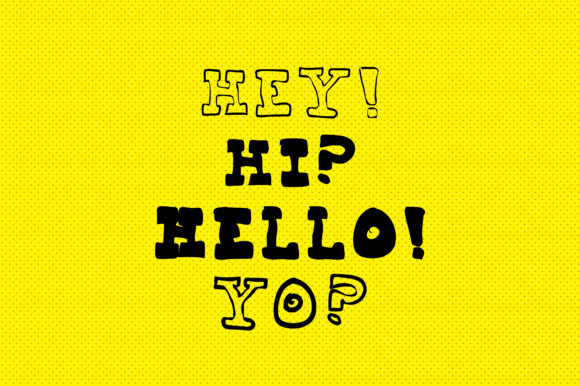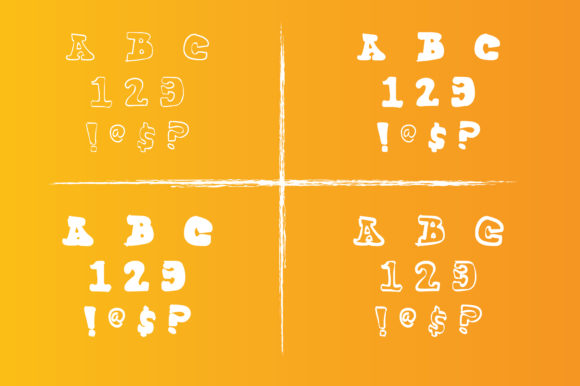
Introduction to Ink Punk Font
The Ink Punk is an amazing hand-drawn font.
It has a lot of personality and is perfect for making your design stand out .